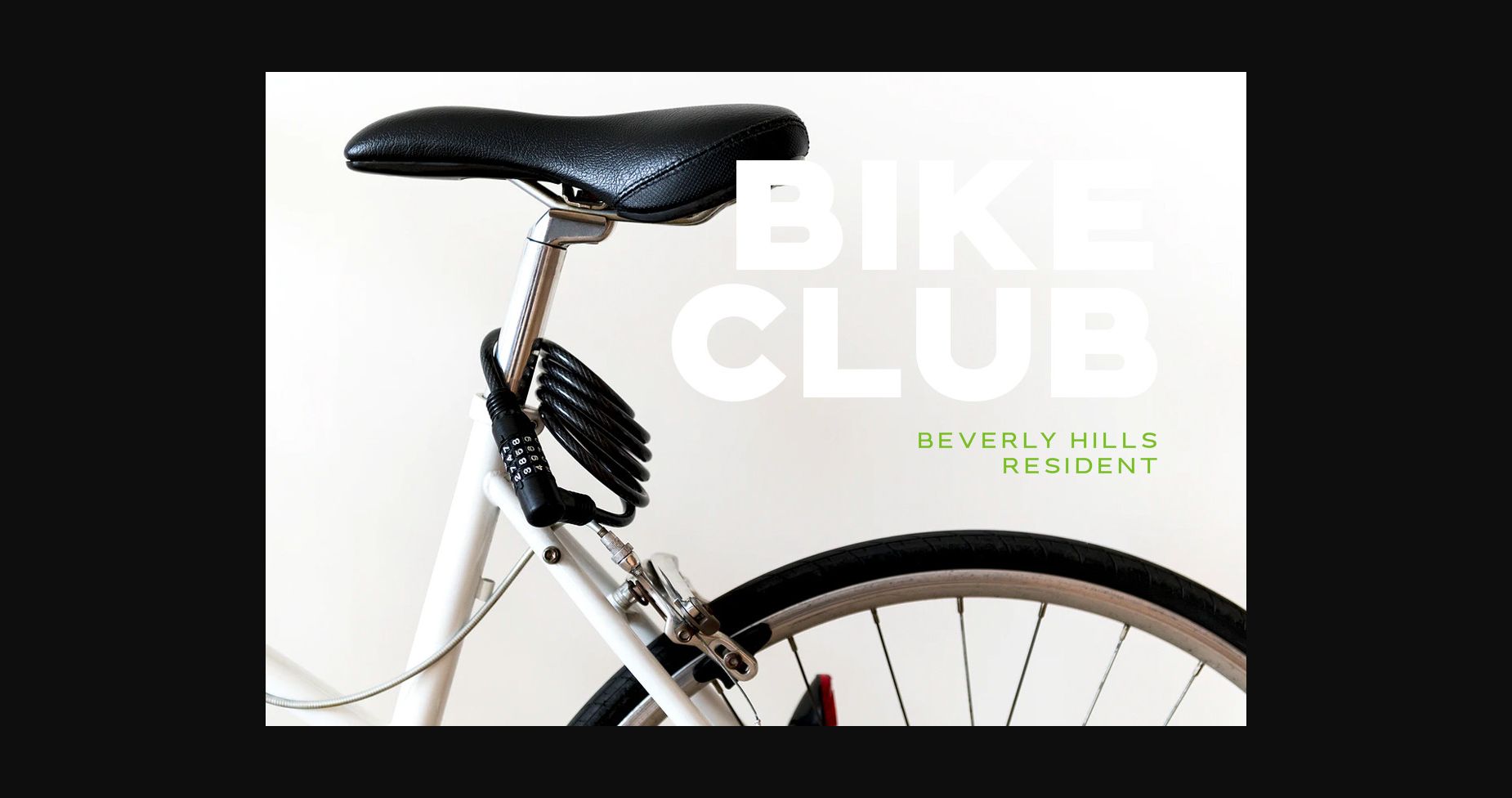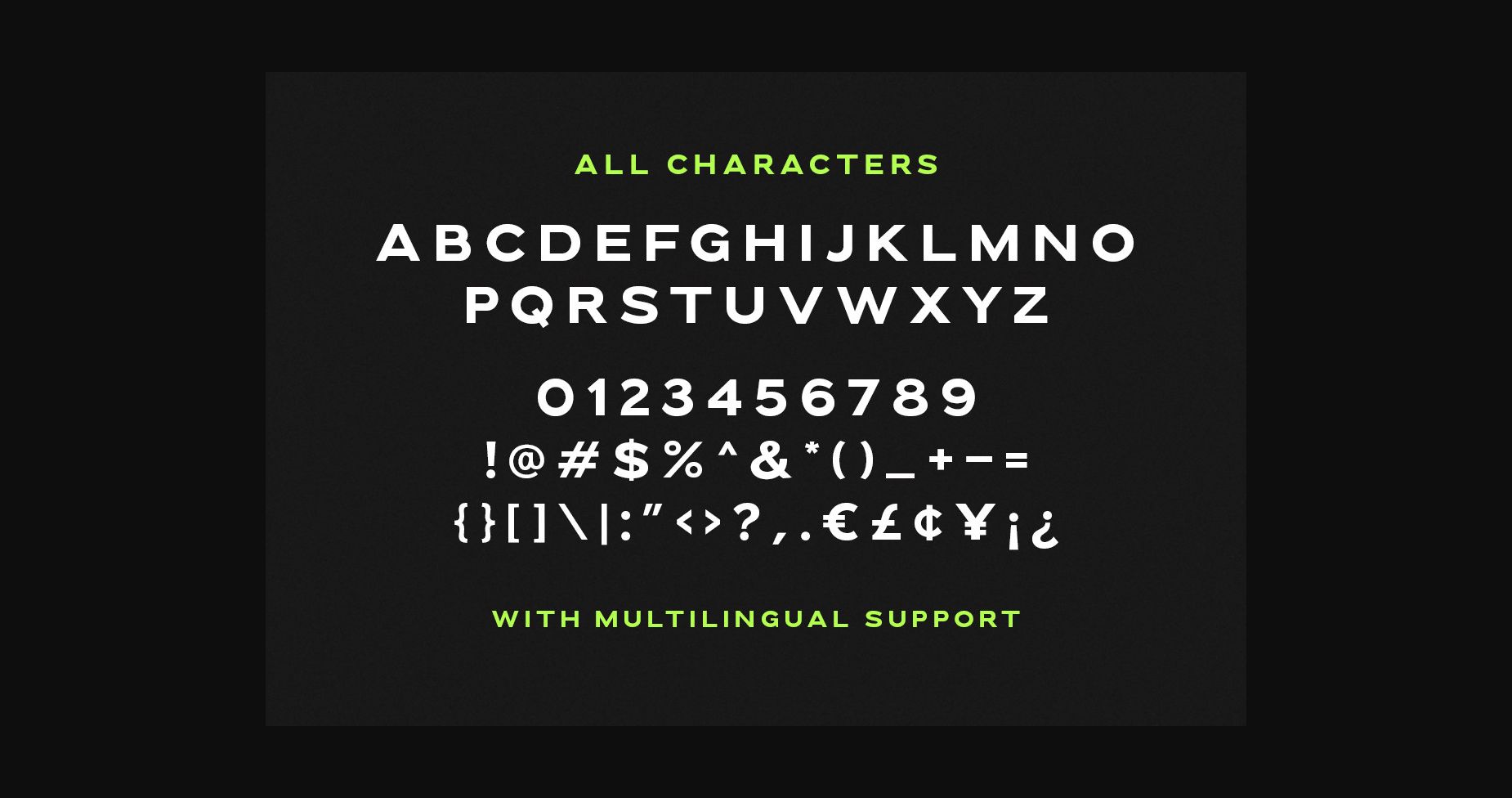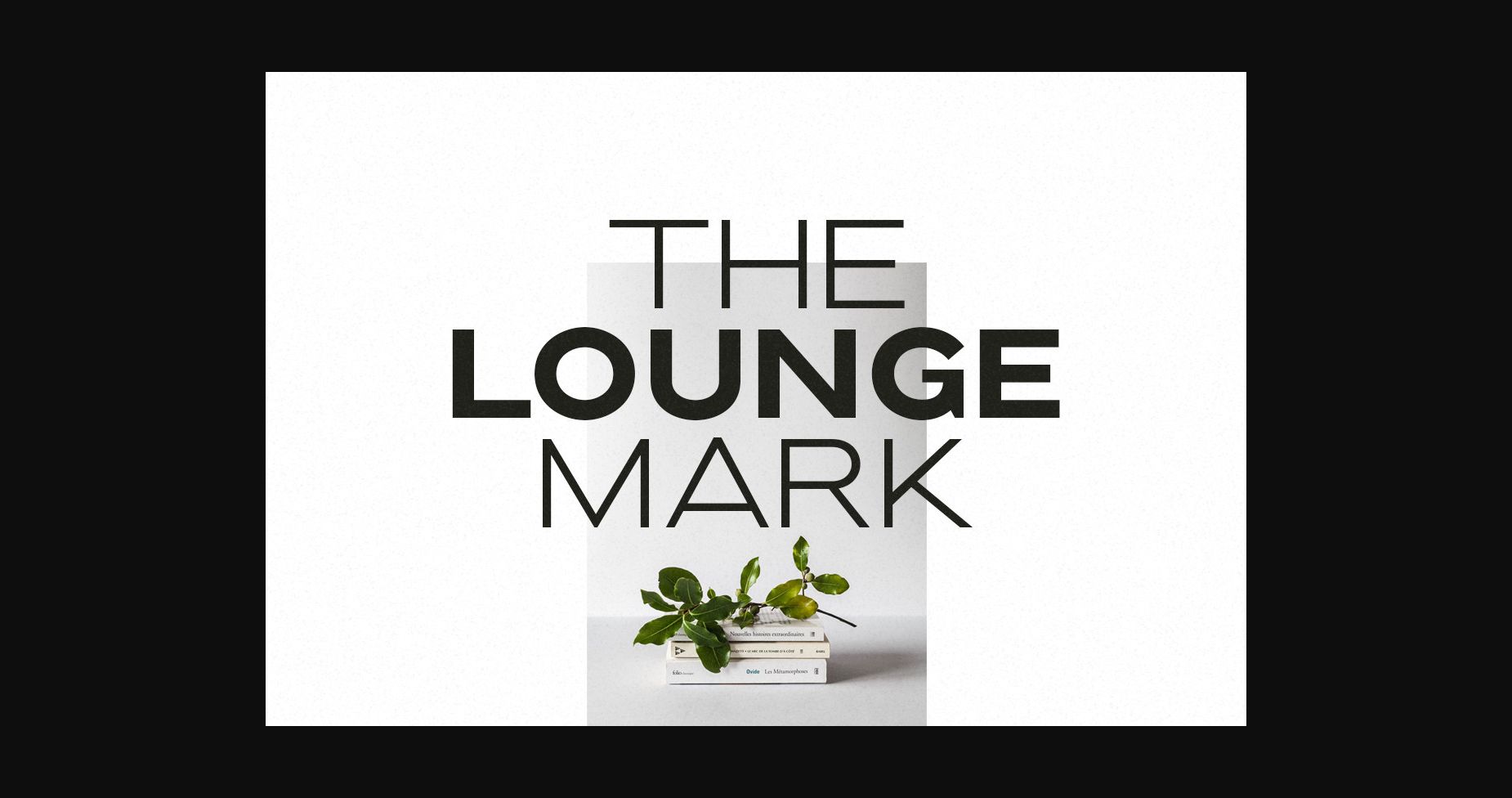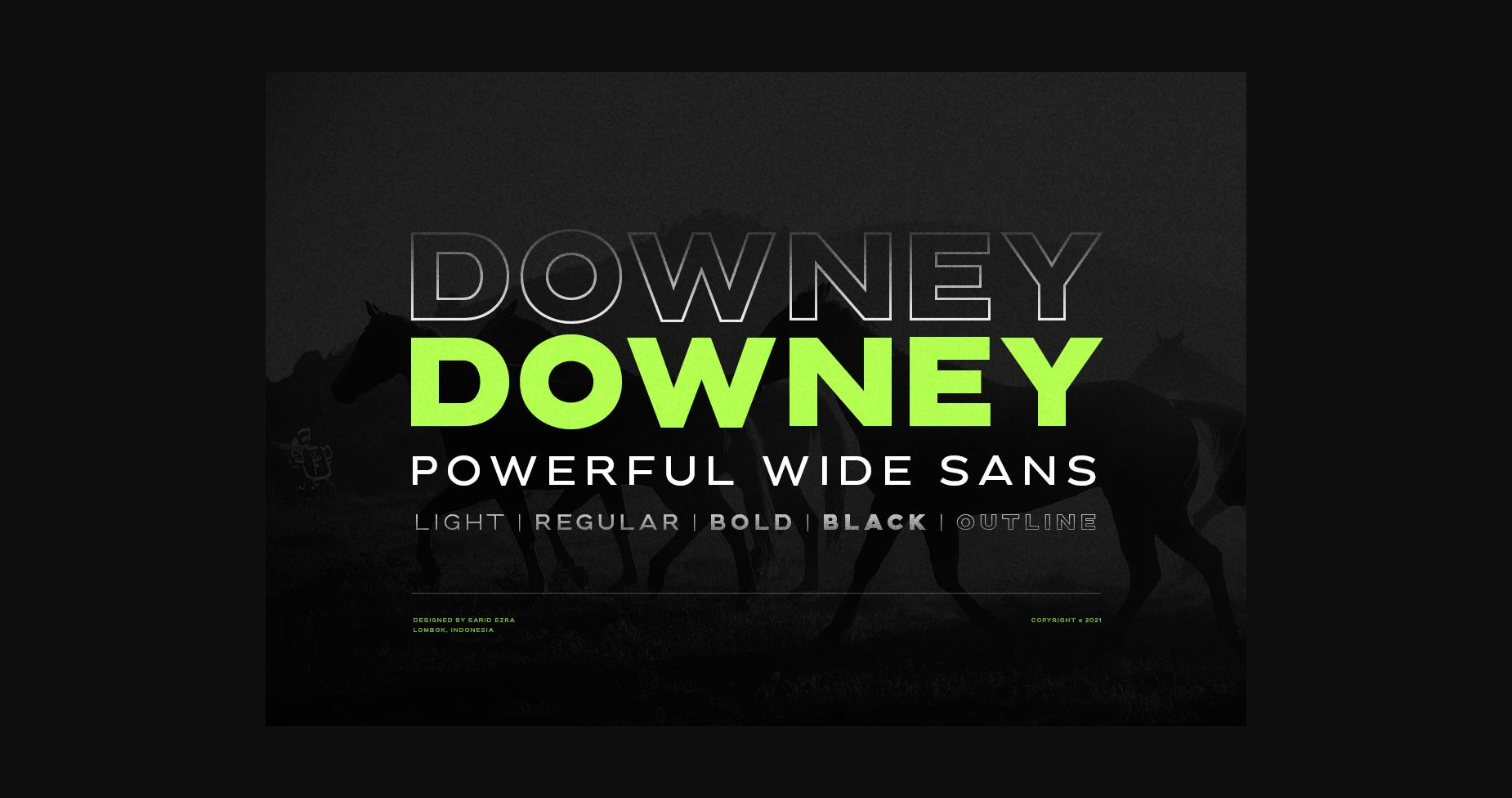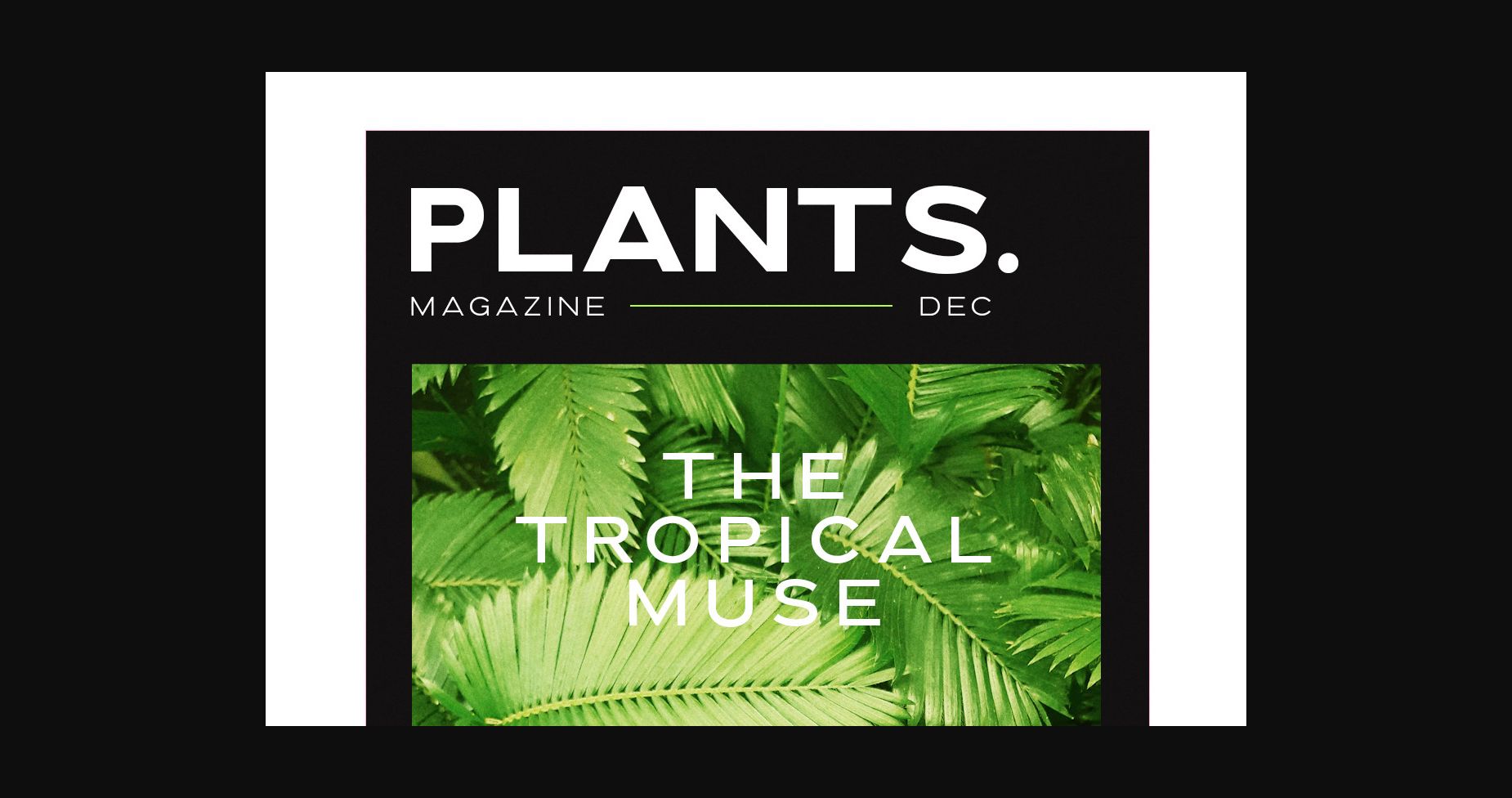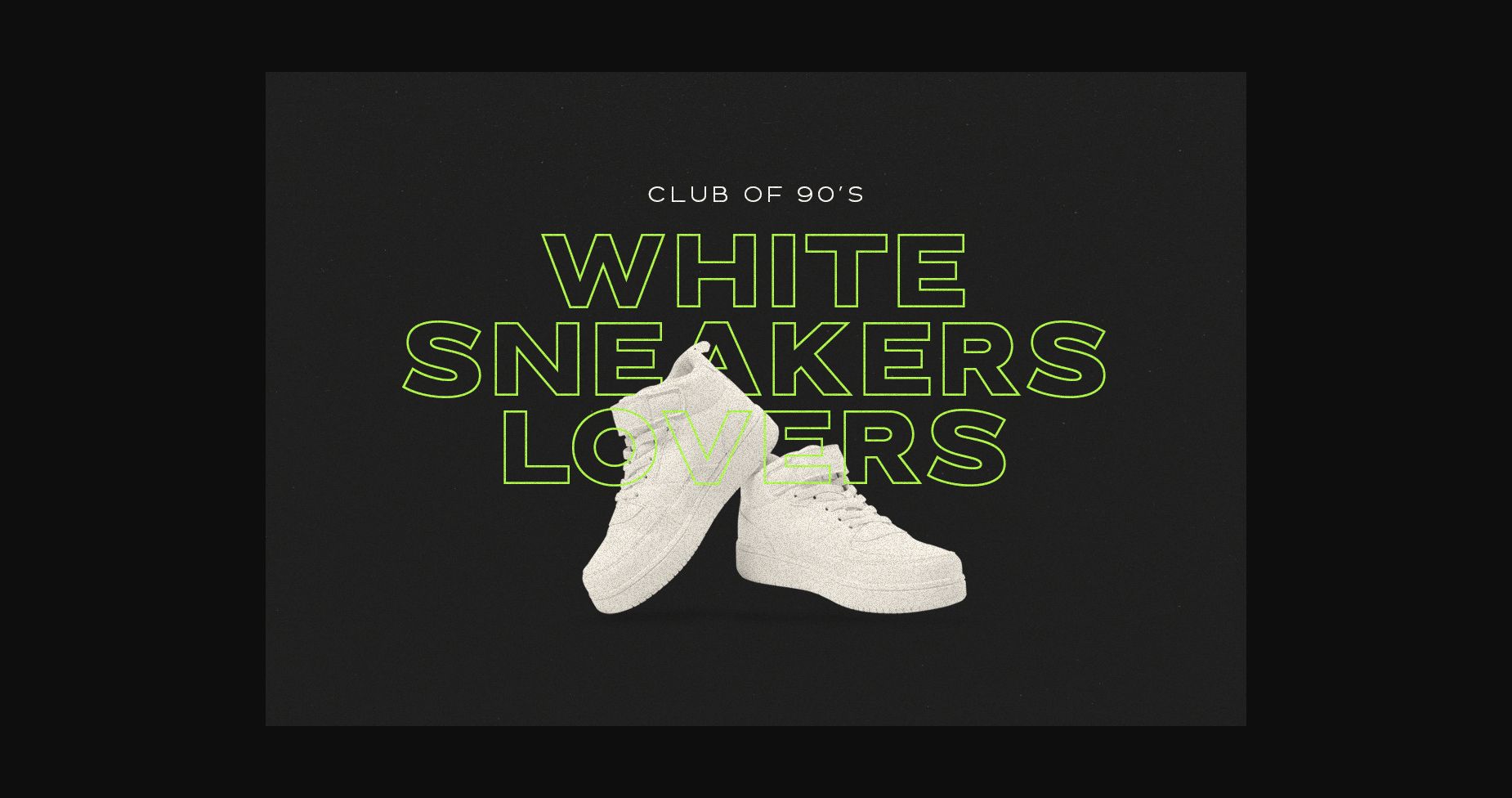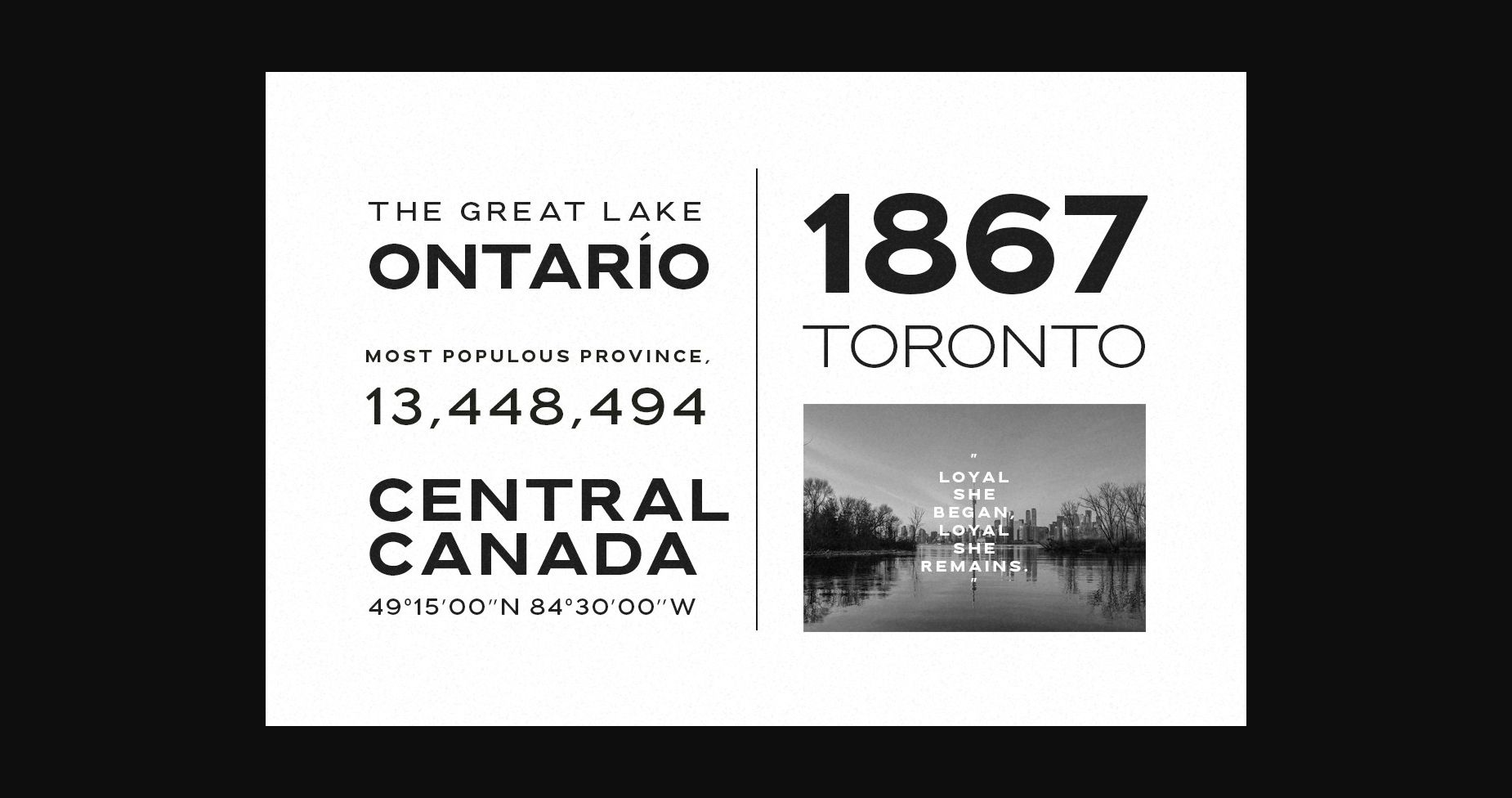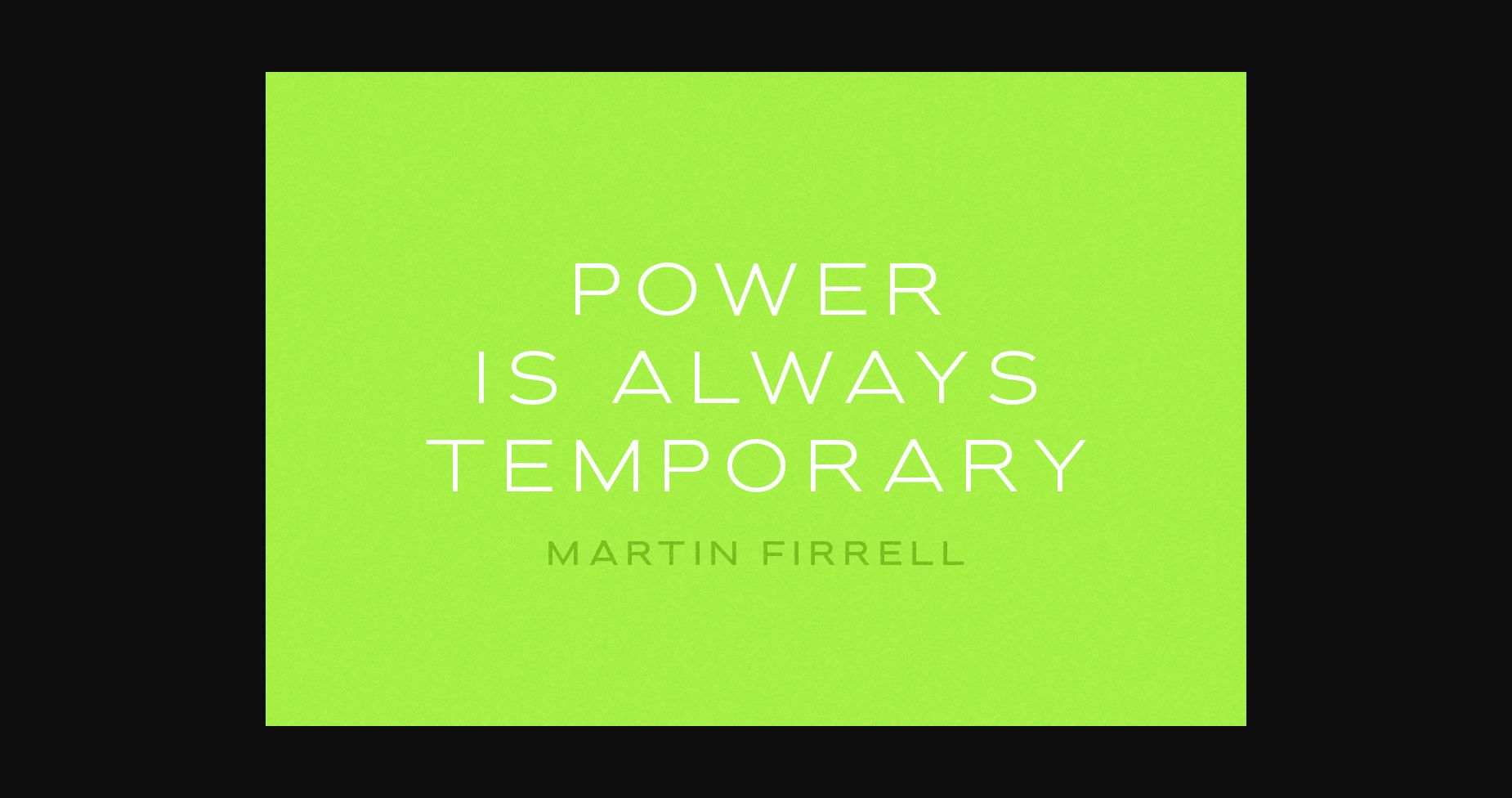
Downey is a casual and essential all-caps sans serif font. With a slightly wide form and strong look, this font is suitable for any project and design. Use this font for titles, quotes, covers, business cards, or more.